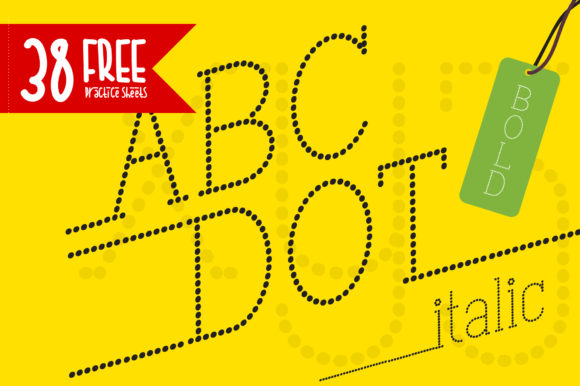
Introducing ABC Dot Font - The Font That Unleashes Your Artistic Genius
In the realm of digital artistry, the choice of font holds immense power. It has the ability to transform ordinary words into captivating works of art, evoking emotions and leaving a lasting impact on the viewer. ABC Dot Font, a meticulously crafted display font from the renowned font foundry pointsandpicas, stands as a testament to this evocative power.
Step into a world where your creations leap off the screen, captivating your audience with a unique blend of charm and sophistication. ABC Dot Font's clean, dotted design exudes an air of playfulness and creativity, inviting you to explore the depths of your imagination. Whether you're designing stunning school projects, crafting eye-catching web designs, or creating unforgettable business cards, ABC Dot Font is your font of choice.
This captivating font is more than just a collection of letters and symbols; it's a gateway to a world of boundless possibilities. Its versatility knows no bounds, empowering you to express your creativity in countless ways. Let your imagination soar as you discover the magic that lies within each perfectly placed dot.